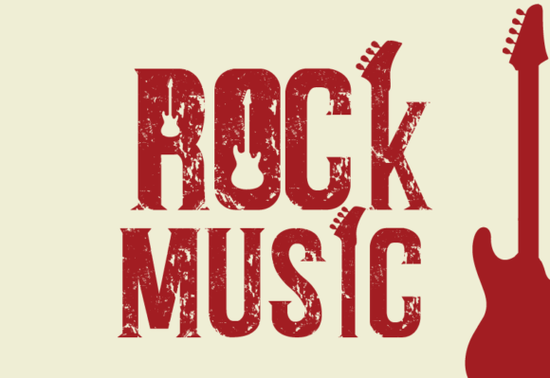
Finding the right typeface for music-themed designs can be tricky. You need something that feels energetic without being messy, bold without being unreadable. The Rock Music font solves that problem with a clean, decorative style that works across a surprising range of projects. It has a minimalist grace to it smooth, airy letterforms that carry a subtle rhythm without going over the top. If you're a designer, crafter, or small business owner looking for a typeface with personality, this one is worth a closer look.
What Makes This Font Stand Out From Other Decorative Typefaces?
Plenty of decorative fonts try to grab attention by being loud and complicated. Rock Music takes the opposite approach. The letter shapes are carefully crafted with clean lines and balanced proportions. There's a precision to each character that gives the font an elegant, almost musical quality like a well-tuned melody.
This makes it surprisingly versatile. Unlike heavily stylized fonts that only work at huge sizes, Rock Music holds up well at different scales. The smooth curves and airy spacing keep it readable whether you're using it for a bold headline or a smaller accent piece.
Who Is This Font Best For?
This font works well for a broad range of creative people and businesses:
- Print-on-demand sellers Use it on t-shirts, mugs, and posters targeting music lovers, band merchandise, or festival branding.
- Crafters and DIY hobbyists Great for vinyl decals, greeting cards, scrapbook pages, and party invitations with a music theme.
- Small business owners If you run a music school, record store, podcast, or entertainment brand, this font gives your materials a polished, professional look.
- Graphic designers Perfect for album covers, event flyers, social media posts, and YouTube thumbnails.
- Wedding and event planners Music-themed events or concerts benefit from typography that feels refined and on-brand.
What Types of Projects Can You Create With It?
Because the font balances decoration with readability, it adapts to many different uses. Here are some ideas:
- Apparel designs T-shirts, hoodies, and hats with music quotes or band-inspired text.
- Digital products Sell printable wall art, social media templates, or planner stickers with a music motif.
- Branding materials Logos, business cards, and letterheads for music-related businesses.
- Event promotion Concert posters, festival banners, and invitation cards.
- Home décor Framed quotes, canvas prints, and custom signage for music rooms or studios.
The key advantage here is that the font's minimalist character means it doesn't fight with your other design elements. It complements rather than competes, which is exactly what you want from a decorative typeface.
How Does It Compare to Other Decorative Fonts?
If you're browsing through decorative fonts for creative projects, you'll notice that many lean heavily into one aesthetic either ultra-bold and chunky or extremely ornate. Rock Music sits in a sweet spot. It's decorative enough to add visual interest but clean enough to stay versatile.
This matters for print-on-demand sellers especially. A font that's too complex can cause production issues with certain printing methods. A font that's too plain won't catch a buyer's eye in a crowded marketplace. Rock Music handles both concerns with its balanced design approach.
Tips for Getting the Most Out of This Font
Keep these practical suggestions in mind when working with Rock Music:
- Pair it with a simple sans-serif for body text. The decorative style works best as a headline or accent font, not for long paragraphs.
- Use generous spacing the airy letterforms already have natural breathing room, so don't crowd them.
- Test at multiple sizes before finalizing your design to make sure the details read well on your specific medium.
- Stick to solid, high-contrast backgrounds to let the clean shapes show through clearly.
- Preview it with your actual text to see how specific letters and combinations look.
- Consider your color palette this font pairs nicely with bold, solid colors and muted tones alike.
- Have a backup plan with a complementary secondary font for contrast.
Rock Music is a solid choice when you need a decorative font that feels polished rather than overdone. It brings a subtle musical energy to your designs without sacrificing clarity and for anyone selling products or building a brand around music culture, that balance is everything.